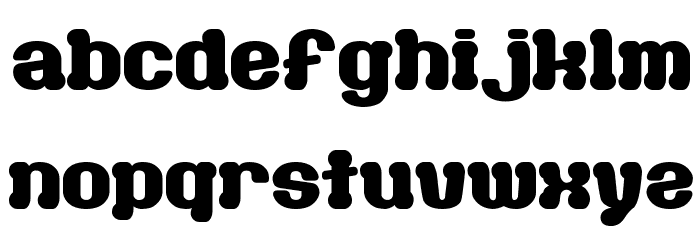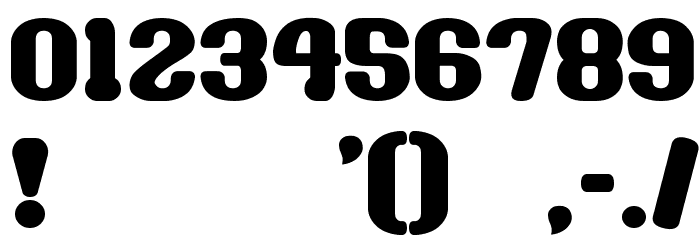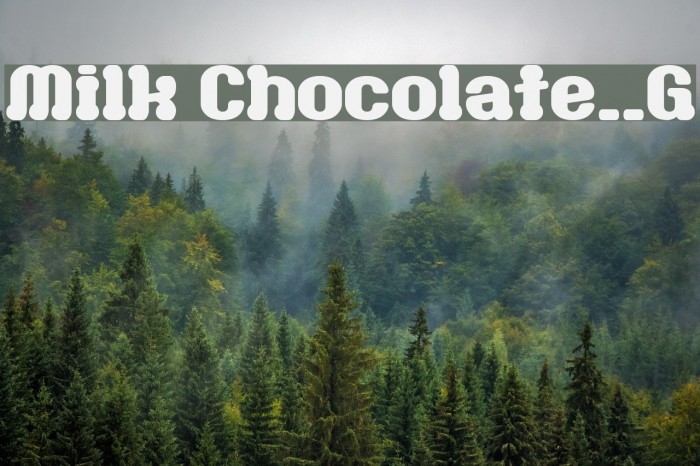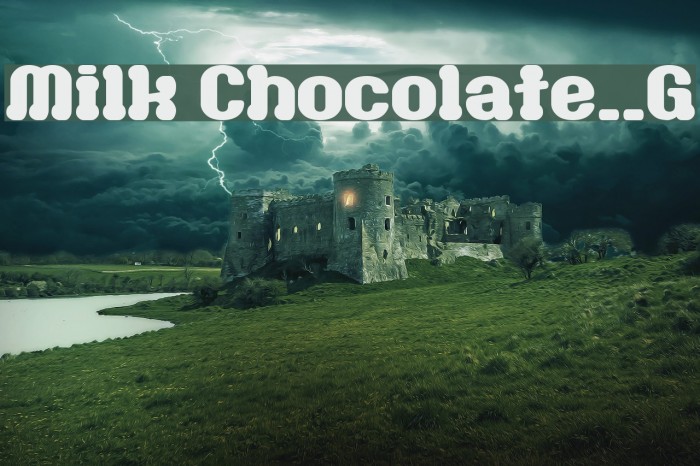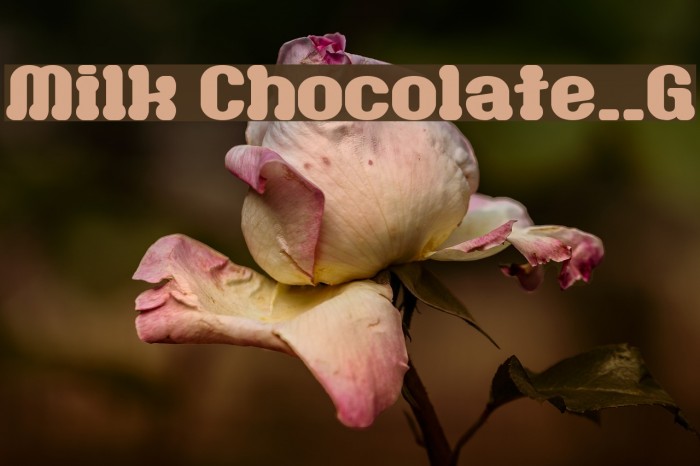
Milk Chocolate__G Font
This font features a bold and playful design with rounded edges and a bubbly appearance. The characters are thick and have a consistent weight throughout, giving them a strong presence. The rounded terminals and exaggerated curves add a whimsical touch, making it ideal for designs that require a fun and approachable feel. The numbers and special characters maintain the same playful style, ensuring consistency across all elements. Its unique style is reminiscent of retro and vintage aesthetics, making it suitable for projects that aim to evoke nostalgia or a sense of fun.
A bold, playful font with rounded edges and a whimsical, retro feel.
- Proposed Projects: Perfect for children's books, playful branding, retro-themed posters, and fun packaging designs.
- Overall Style: Vintage
- Use Case: Logos, Posters, Packaging